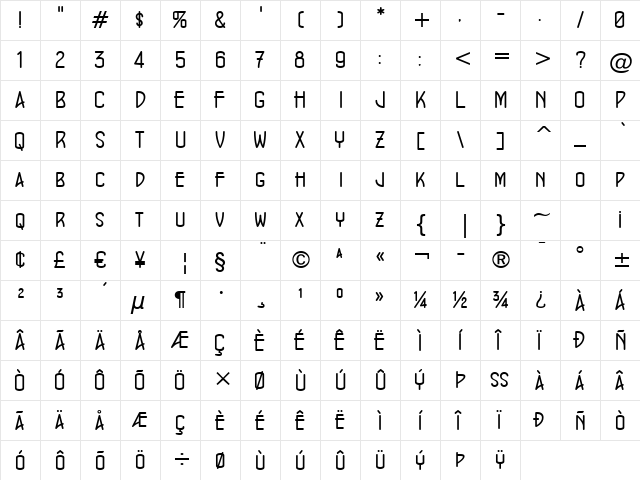
ConcursoModerne BTN Regular Font Preview
ConcursoModerne BTN Regular
ConcursoModerne BTN Regular Font Details
Design Context for ConcursoModerne BTN Typeface
ConcursoModerne BTN takes a measured approach to typography — its balanced proportions and neutral character make it a reliable workhorse for both digital and print work.